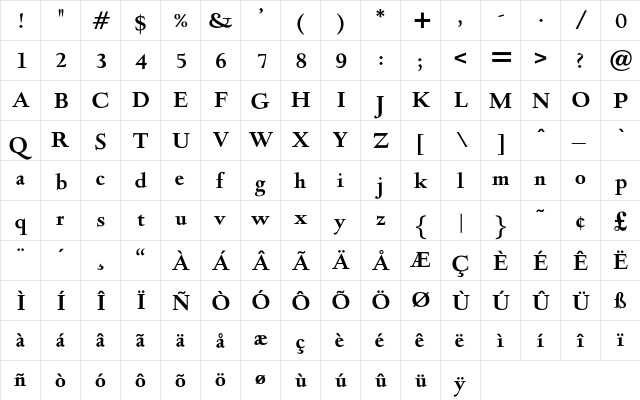
ChampagneBold Regular
Design Context for ChampagneBold Typeface
ChampagneBold is a composed and adaptable typeface that performs quietly and consistently across a wide range of design contexts. The heavy weight commands attention and anchors typographic hierarchies.